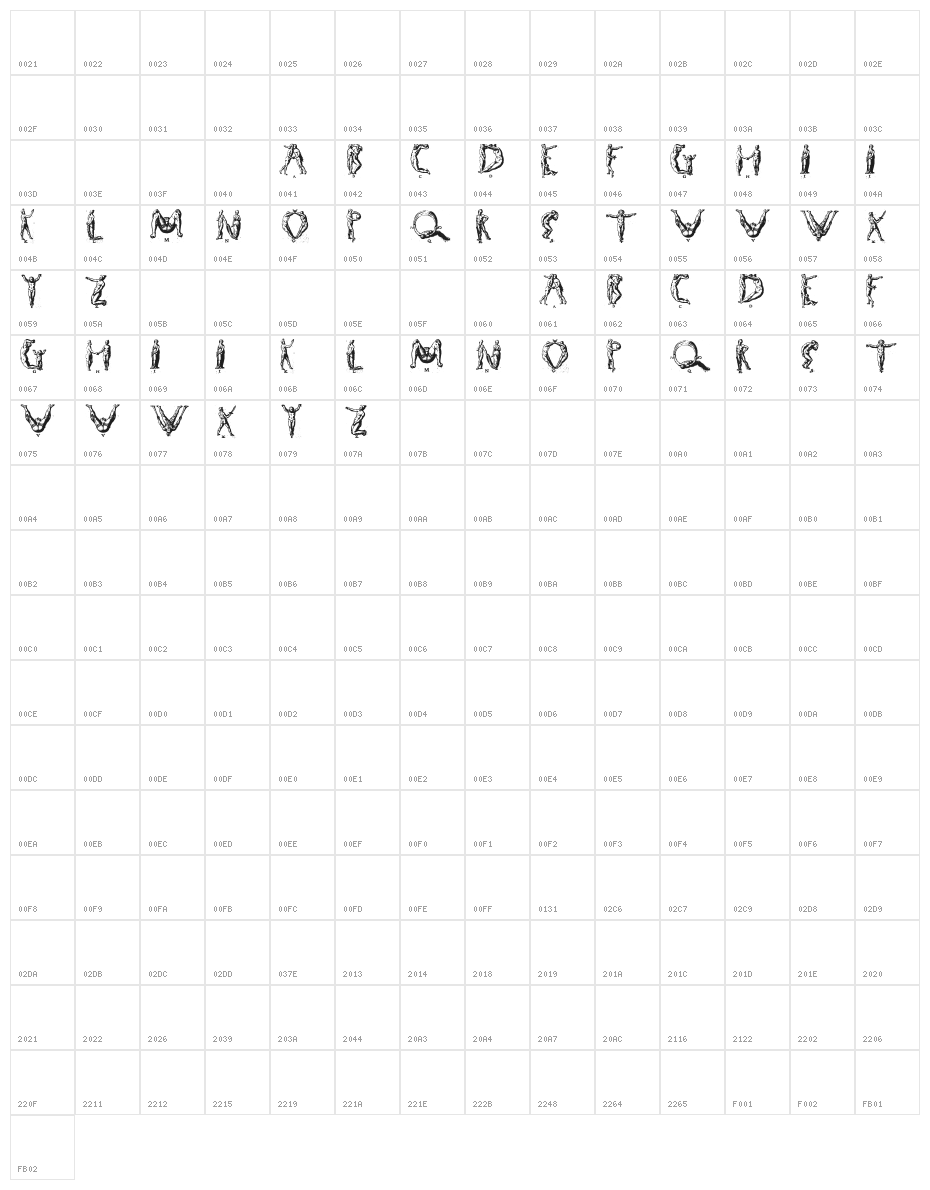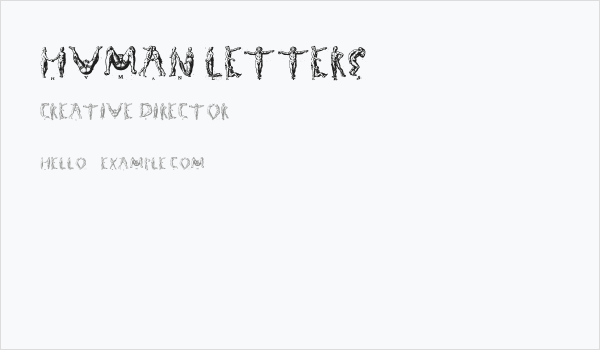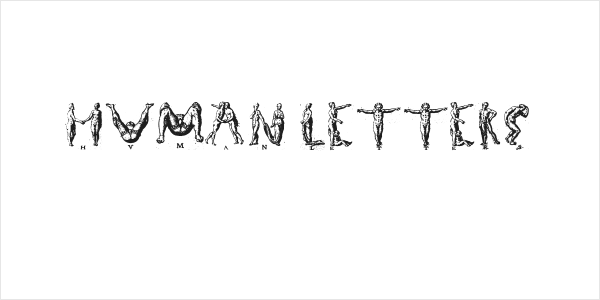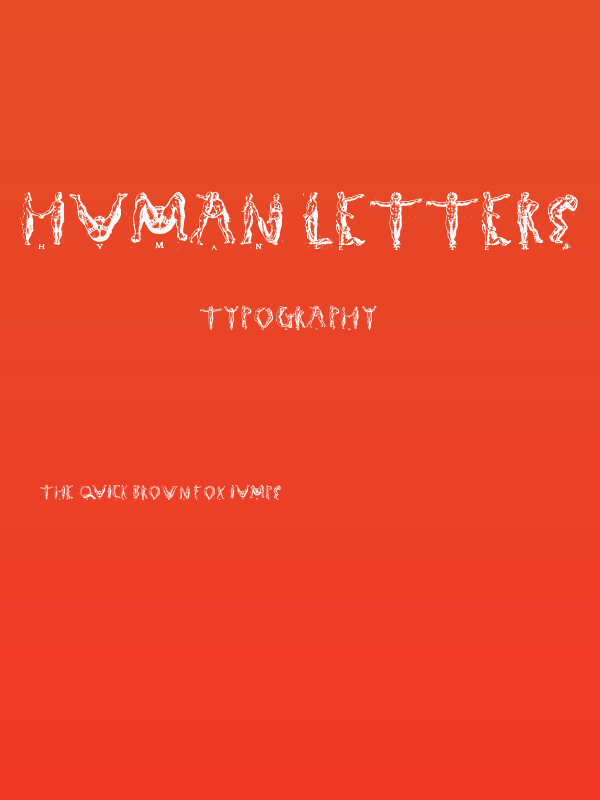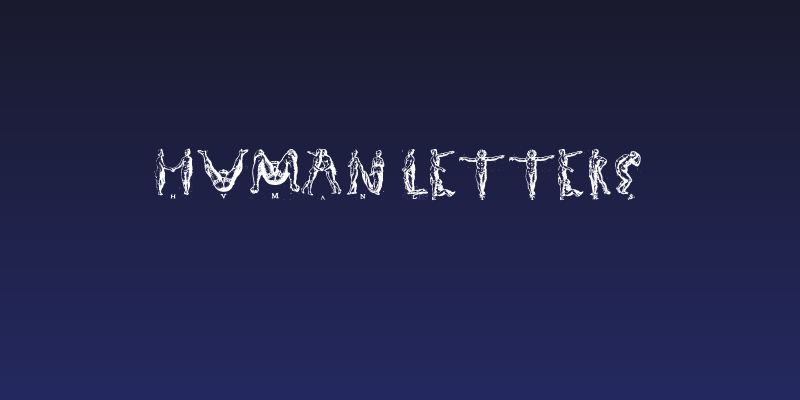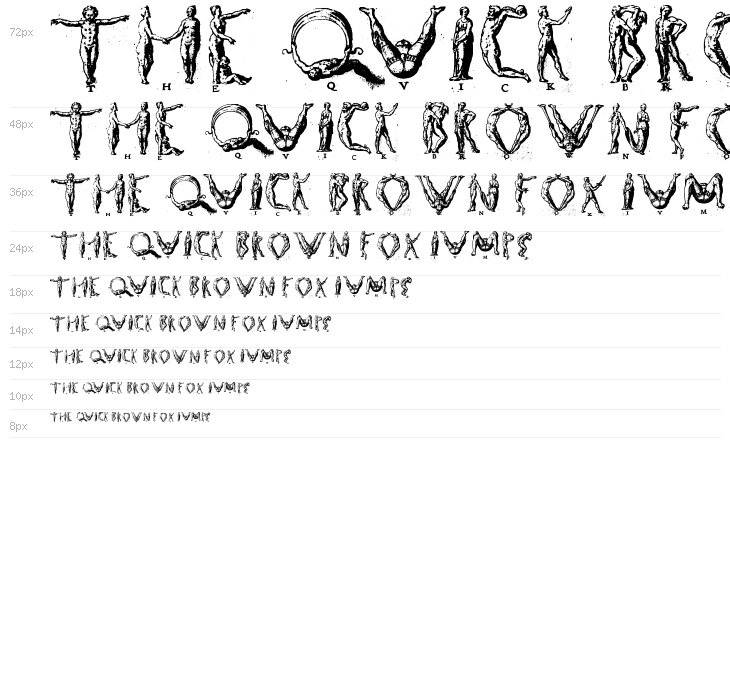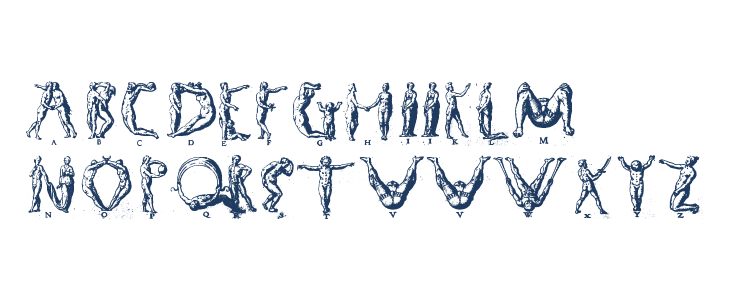
Human letters Font
Human letters Description
This font is a creative and artistic representation where each letter is formed by human figures. The design is highly detailed, capturing the intricacies of human anatomy in various poses to shape each character. The figures are depicted in a monochromatic style, adding a classic and somewhat vintage feel to the overall appearance. The font is unique and visually striking, making it ideal for projects that require a bold and unconventional aesthetic. The characters are consistent in style, with each letter maintaining a similar level of detail and artistic expression.
| Overall Style | Artistic, Decorative |
| Use Case | Headlines, Artistic projects, Posters |
| Proposed Projects | Ideal for artistic projects, posters, album covers, or any design requiring a distinctive and creative touch. |